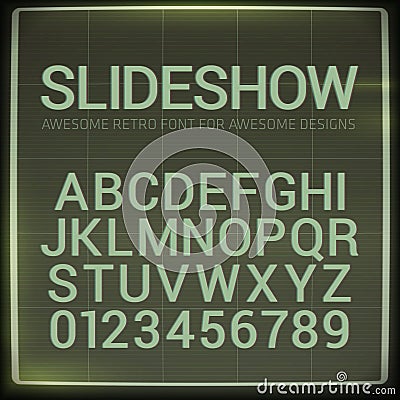
Retro Font With Blur Effect. Vector Distorted Retro Slide Projector Screen Tiltle Alphabet.
Retro font with blur effect. Vector distorted retro slide projector screen tiltle alphabet on dark background.